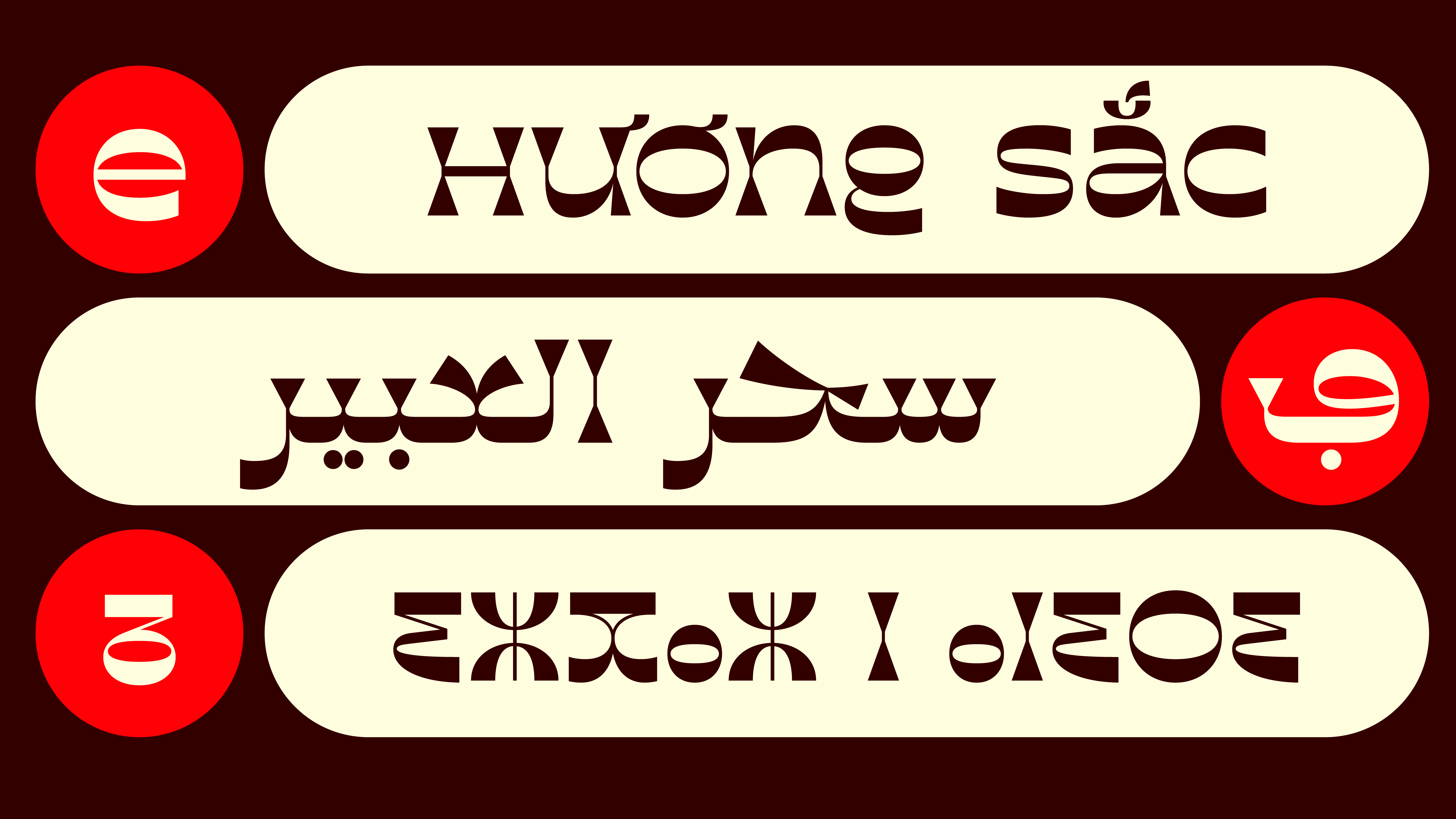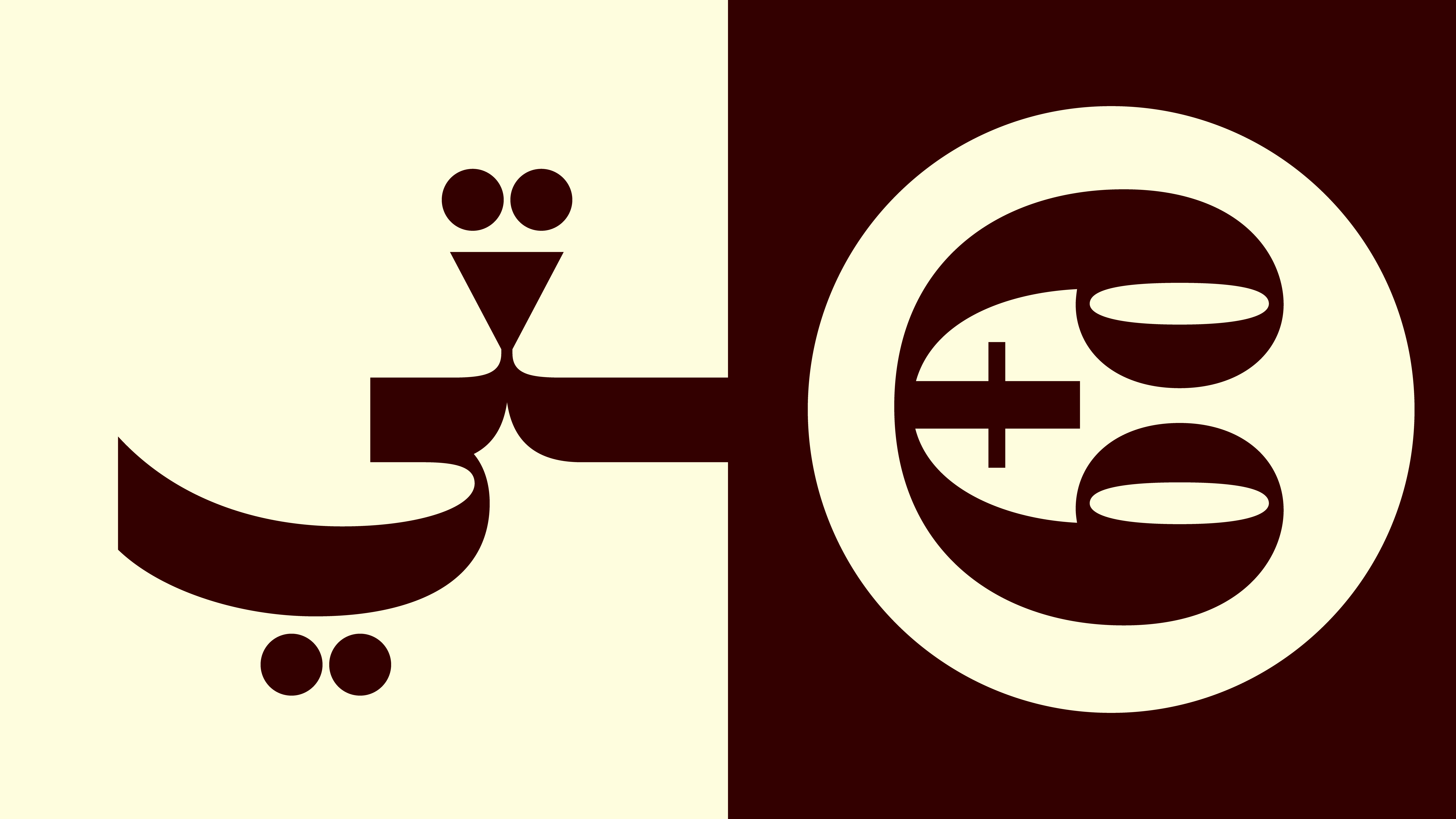
Sameo
ساميو
في بابلفونت، لا نرسم الحروف... بل نُحرّرها من أقفاص اللغة! هل رأيتَ حرفًا يتمطّى؟ نحن رأيناه. وحرفًا آخر يرقص على السطر، ثم يختفي فجأة في هامش المعنى. بعض الحروف عندنا تنام في الكلمة، وبعضها الآخر لا يعرف النوم... كل ما يريده هو النطق، النطق، ثم النطق! وهناك حرف كان يصرخ: "أنا لست نقطتين فوق التاء، أنا تاج!" وحرف آخر رفض أن يكون في نهاية الجملة، لأنه يخاف من النقطة. في بابلفونت، الحروف تتحدث لغات لا تُعدّ. العربية، اللاتينية، التيفيناغ، الكورية... كلها تجلس على طاولة واحدة، تشرب الشاي، وتتناقش في قضايا الشكل والبياض والميزان البصري. قد تقول لي: "لكن الحرف لا يتكلم!" وأنا أقول لك: بل يتكلم، فقط عليك أن تقرأه جيّدًا. الخط ليس مجرد رسم، إنه تمثيل مسرحي صامت، يصرخ دون صوت. بعض الخطوط سمينة، وبعضها نحيفة، وبعضها مثل طير لا يعرف أين يضع قدميه. في بابلفونت، لا نبيع الخطوط، بل نروي بها القصص. الخط عندنا لا يُقصّ ولا يُضغط... هو يُهمَس، يُقطّر، يُسكب على الصفحة كالعطر. حرف العين قال يومًا لحرف الاّم: "أنا أعقد منك!" فردّ الاّم: "لكنني أطول!" وفي النهاية اتفقا على أن الجمال في الخط ليس في الطول أو العقد، بل في الانسجام. نحن في بابلفونت لا نبحث عن الحروف، نحن نخلقها. ثم نتركها تسير على الورق كما تشاء... فهل تجرؤ على قراءتها؟
ⵙⴰⵎⵉⵓ
ⵜⴰⵡⵉⵏⴰ ⵉⵏⴰⵡⴰⵙⵙ ⵏ ⵉⵖⵔⵉ ⴷ ⴰⵎⵓⵍ ⵏ ⴰⵙⴳⴰⵣ. ⵉⵖⵍⴰ ⴷ ⴰⴽⴰⵣ, ⴰⵙⵉⵏ ⴷ ⵢⵉⵏ, ⵉⵎⵓⵙⵙⴰ ⵓⵏⴰⴷ ⴰⵎⴰⵣⵉⵖ ⴰⴷ ⴰⵍⴰⵎⴰⵏ. ⴰⵡⵉⴷ ⴰⴳⵔⴰⵡ ⵓⵙⵏⵉⴹ, ⵏⵉⴷⵓⴷ ⴰⵣⴰⵍ, ⵉⵍⴰ ⵓⴱⴰⵔⴷ ⴰⴽⵔⴰⵡ ⵙⴰ ⵉⵣⴰⵡⴰⵏ. ⴰⵎⴰⵍⵍⵓ ⵏⵉⵖ, ⴰⴷⵔⴰⵏ ⵉⴷ ⴰⵏⵉⵍⵍⵉ ⴷ ⴰⴷⵓⴷⵉⵏ. ⵓⵙⵍⴰⵡ ⴰⵏⵎⴰⴹ ⵏ ⵜⴰⵡⵉⵏⴰ ⴷ ⴰⵙⴳⴰⵣ ⵙ ⵜⴰⵙⴳⴰⵡⵜ ⵓⵏⴰⴷ ⵜⴰⵎⴰⵣⵉⵖⵜ. ⴰⵡⵉⵙⵉ ⵙⴰ ⴷⴰⵔ ⵉⴷ ⵓⵏⵖⵓⵍ ⴷ ⴰⵔⴰⵡ. ⵙⵉⵏ ⴰⴷ ⴰⵙⵙⵓⵔⵉⵏ ⵙ ⵜⴰⵣⴰⵍⵜ. ⴰⵏⴰⵎⴻⵔⴰ ⵏⴰⵎⴰⵢⵏ ⵉⵙⴷⴰ ⵓⴷⴻⵔⵏ ⵏⵓⵎⴻⵔⵍⴰⴷ, ⵓⵏⴰⴷ ⵉⵎⴰⵙⴷⴰ ⴷ ⴰⵍⴰⵎⴰⵏ. ⵉⵏⴰⵡⴰⵙⵙ ⵜⴰⵎⵓⵍⴰⵡⵉⵜ, ⵙⵙⴰⴳⴰⵔⵉⵜ, ⵙⴰⵡⴰⵙⴰⵏⵜ. ⴰⴳⴳⴰⴷ ⵏ ⵉⵙⵙⴰ ⴰⴷ ⴰⴳⴳⴰⴷ ⵏ ⵓⴳⵔⴰⵡ. ⵜⴰⵡⵉⵏⴰ ⴷ ⴰⴼⴰⵏⴰⵙ ⴷ ⵜⴰⵎⵓⵣⵣⴰ ⵉⴷ ⴰⵙⵉⵏ. ⵜⴰⵏⴰⴹⴰ ⴷ ⵜⴰⵎⴻⴳⴷⴰ ⵉⴷ ⵜⵉⵎⵓⴽⴽⴰⵍⵉⵢⵉⵏ. ⴰⵍⴰⵎⴰⵏ ⴷ ⴰⵙⴳⴰⵣ ⵙⴰ ⵉⴱⴰⵏ ⵙ ⵓⴱⴻⵙⴰⵡⵉⵏ. ⵓⵙⵍⴰⵡ ⴰⴳⴷⴰⵔⴻⵏ, ⵓⵙⵍⴰⵡ ⴰⵍⴻⴷⵉ ⴷ ⵜⴰⵏⵏⴰⵙⵙⵓⵏⵜ.ⵜⴰⵡⵉⵏⴰ ⵉⵏⴰⵡⴰⵙⵙ ⵏ ⵉⵖⵔⵉ ⴷ ⴰⵎⵓⵍ ⵏ ⴰⵙⴳⴰⵣ. ⵉⵖⵍⴰ ⴷ ⴰⴽⴰⵣ, ⴰⵙⵉⵏ ⴷ ⵢⵉⵏ, ⵉⵎⵓⵙⵙⴰ ⵓⵏⴰⴷ ⴰⵎⴰⵣⵉⵖ ⴰⴷ ⴰⵍⴰⵎⴰⵏ. ⴰⵡⵉⴷ ⴰⴳⵔⴰⵡ ⵓⵙⵏⵉⴹ, ⵏⵉⴷⵓⴷ ⴰⵣⴰⵍ, ⵉⵍⴰ ⵓⴱⴰⵔⴷ ⴰⴽⵔⴰⵡ ⵙⴰ ⵉⵣⴰⵡⴰⵏ. ⴰⵎⴰⵍⵍⵓ ⵏⵉⵖ, ⴰⴷⵔⴰⵏ ⵉⴷ ⴰⵏⵉⵍⵍⵉ ⴷ ⴰⴷⵓⴷⵉⵏ. ⵓⵙⵍⴰⵡ ⴰⵏⵎⴰⴹ ⵏ ⵜⴰⵡⵉⵏⴰ ⴷ ⴰⵙⴳⴰⵣ ⵙ ⵜⴰⵙⴳⴰⵡⵜ ⵓⵏⴰⴷ ⵜⴰⵎⴰⵣⵉⵖⵜ. ⴰⵡⵉⵙⵉ ⵙⴰ ⴷⴰⵔ ⵉⴷ ⵓⵏⵖⵓⵍ ⴷ ⴰⵔⴰⵡ. ⵙⵉⵏ ⴰⴷ ⴰⵙⵙⵓⵔⵉⵏ ⵙ ⵜⴰⵣⴰⵍⵜ. ⴰⵏⴰⵎⴻⵔⴰ ⵏⴰⵎⴰⵢⵏ ⵉⵙⴷⴰ ⵓⴷⴻⵔⵏ ⵏⵓⵎⴻⵔⵍⴰⴷ, ⵓⵏⴰⴷ ⵉⵎⴰⵙⴷⴰ ⴷ ⴰⵍⴰⵎⴰⵏ. ⵉⵏⴰⵡⴰⵙⵙ ⵜⴰⵎⵓⵍⴰⵡⵉⵜ, ⵙⵙⴰⴳⴰⵔⵉⵜ, ⵙⴰⵡⴰⵙⴰⵏⵜ. ⴰⴳⴳⴰⴷ ⵏ ⵉⵙⵙⴰ ⴰⴷ ⴰⴳⴳⴰⴷ ⵏ ⵓⴳⵔⴰⵡ. ⵜⴰⵡⵉⵏⴰ ⴷ ⴰⴼⴰⵏⴰⵙ ⴷ ⵜⴰⵎⵓⵣⵣⴰ ⵉⴷ ⴰⵙⵉⵏ. ⵜⴰⵏⴰⴹⴰ ⴷ ⵜⴰⵎⴻⴳⴷⴰ ⵉⴷ ⵜⵉⵎⵓⴽⴽⴰⵍⵉⵢⵉⵏ. ⴰⵍⴰⵎⴰⵏ ⴷ ⴰⵙⴳⴰⵣ ⵙⴰ ⵉⴱⴰⵏ ⵙ ⵓⴱⴻⵙⴰⵡⵉⵏ. ⵓⵙⵍⴰⵡ ⴰⴳⴷⴰⵔⴻⵏ, ⵓⵙⵍⴰⵡ ⴰⵍⴻⴷⵉ ⴷ ⵜⴰⵏⵏⴰⵙⵙⵓⵏⵜ.
사메오
처음 “바벨폰트(Babelfont)”를 들었을 때, 저는 외계 타이포그래피 비밀 조직인 줄 알았습니다. 글자가 춤을 추고, 자음이 모음을 데이트를 신청하고, 글꼴 하나가 무대에서 독백을 한다는 소문까지 있었습니다. 상상해보세요. ‘ㅁ’이 무대 중앙에서 “나의 사각은 너의 둥글음을 사랑한다!”라고 외친다면 얼마나 낭만적일까요?
바벨폰트에서는 글자가 조용히 있질 않습니다. 하나는 굵어지고, 다른 하나는 기울어지고, 또 다른 하나는 티피나그 문자와 사랑에 빠집니다. 오늘은 라틴과 아랍, 내일은 한국어와 프랑스어. 글꼴들이 국경을 넘나드는 걸 보면 여권이 필요 없는 세계가 여기에 있다는 걸 알 수 있죠.
제 컴퓨터에서는 바벨폰트가 자주 장난을 칩니다. 제가 쓴 “안녕하세요”를 “안녕히계세요”로 바꿔놓거나, “사랑”을 “사각”으로 오타처럼 만들어놓죠. 하지만 전 알아요. 이건 실수가 아니라 유쾌한 장난이라는 것을요. 맞아요, 바벨폰트는 그냥 글꼴이 아닙니다. 그것은 문화 교류의 장이며, 문자들의 연극 무대입니다.
어느 날, 한자가 힌디어와 협업하고, 다음 날엔 아마 아르메니아 문자가 디저트를 소개할지도 모릅니다. 그런 세상 속에서, 바벨폰트는 저에게 말합니다: "글자는 단순한 기호가 아니라 살아 있는 리듬이다."
Sameo – Playful. Flexible. Wayward. Sameo is a striking display typeface with sharp lines and unexpected reverse contrast. It blends upper and lowercase shapes into a single expressive voice. Available in three weights: Light, Regular, and Black, it’s designed to make identities stand tall and distinctive across scripts. Multiscript by design: Latin, Arabic, Tifinagh, Hangul.